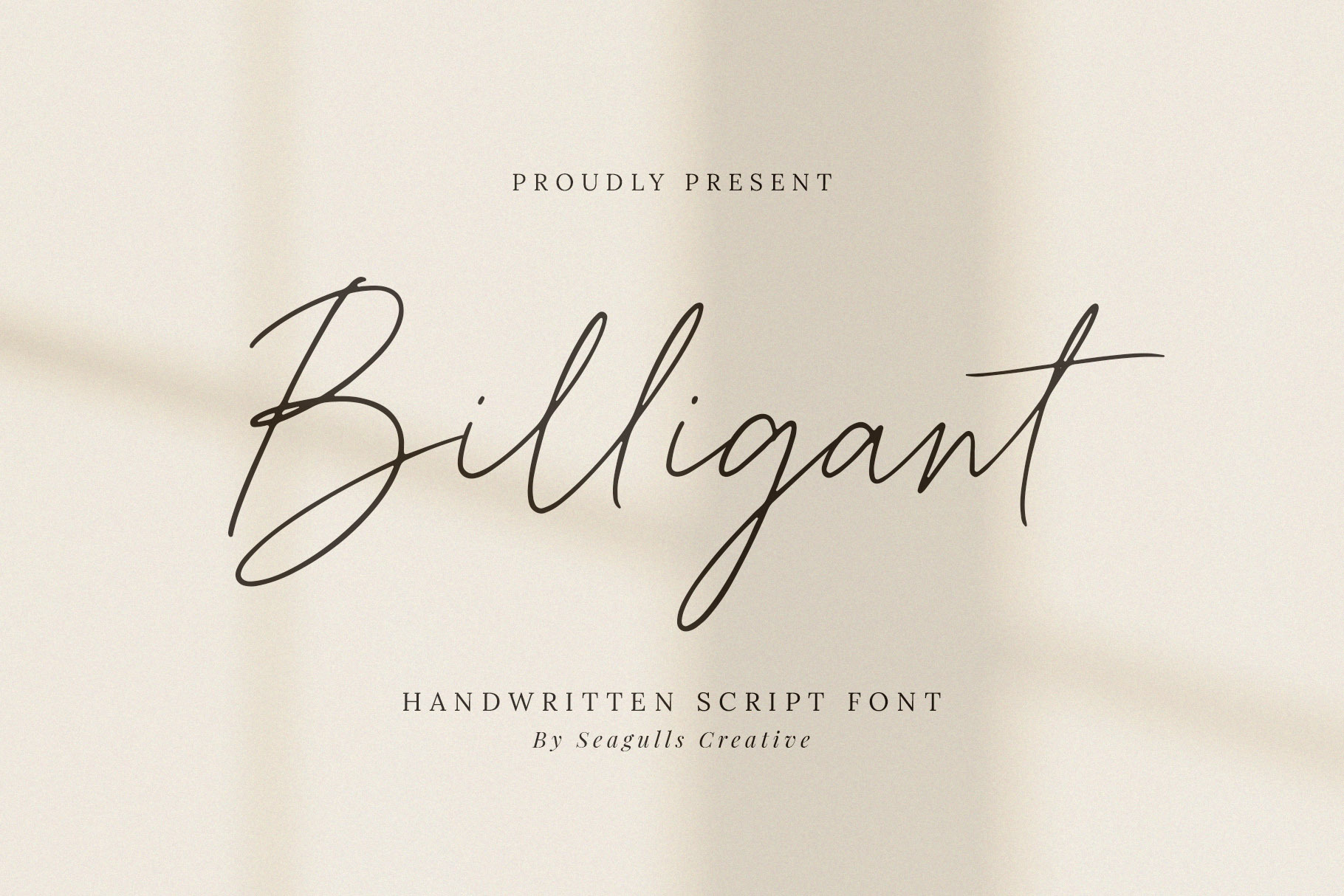
Billigant Handwritten Script Font
Hello everyone, I would like to introduce Billigant a elegant handwritten script font.
Billigant can be used for a variety of projects such as branding, photography, invitations, stationery, wedding designs, social media posts, advertising, product packaging, product design and other romantic projects.
- Letters, numbers, symbols, punctuation, ligatures